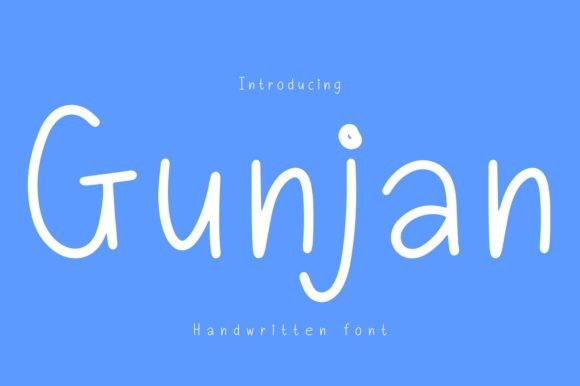
**Introducing Gunjan: The Enchanting Script Font That Embodies Playfulness and Authenticity**
Prepare to be captivated by Gunjan, a captivating script font that exudes playfulness and authenticity. Its charming handwritten characters dance across the page, infusing your designs with a touch of whimsy and undeniable style.
**A Versatile Canvas for Your Creative Pursuits**
Gunjan's inherent versatility knows no bounds. Whether you're crafting elegant logos, expressing yourself through blog posts, or designing eye-catching advertisements, Gunjan seamlessly adapts to your diverse design needs. Its lighthearted nature lends a touch of playfulness to invitations and greeting cards, while its timeless appeal adds a touch of sophistication to planners and photo albums.
**Elevate Your Designs to New Heights**
With Gunjan by your side, the possibilities are endless. Embellish your designs with a touch of whimsy and authenticity. From personal projects to professional endeavors, Gunjan empowers you to captivate your audience and create designs that leave a lasting impression.
**Experience the Magic of Gunjan Today**
Immerse yourself in the enchanting world of Gunjan. Download it today and let its charming characters weave their magic into your designs. Discover the joy of creating with a font that embodies playfulness and authenticity, and elevate your projects to new heights of creativity and expression.